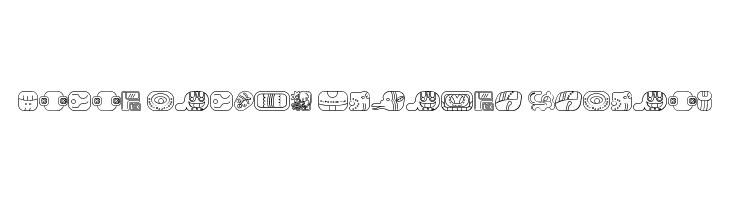
Intricate glyphs inspired by ancient Mayan art with bold outlines.
A decorative font inspired by ancient glyphs, featuring intricate and bold designs.
An intricate, decorative font inspired by ancient glyphs with detailed line work.